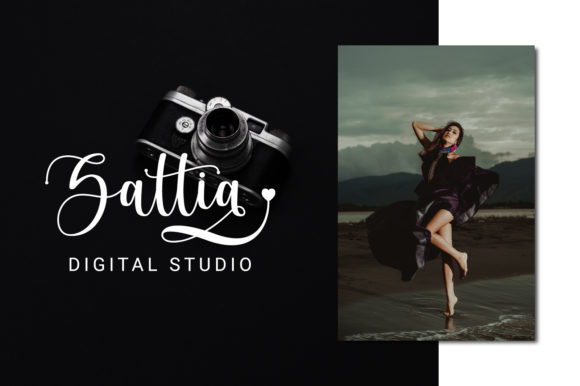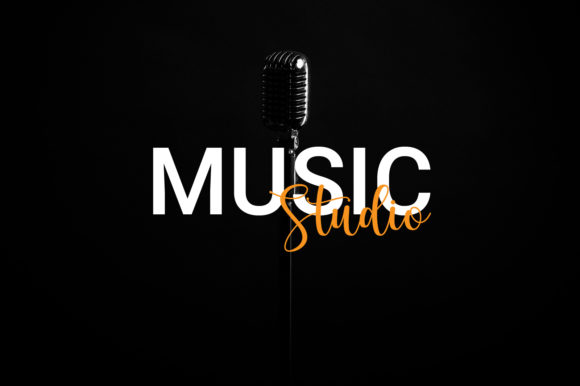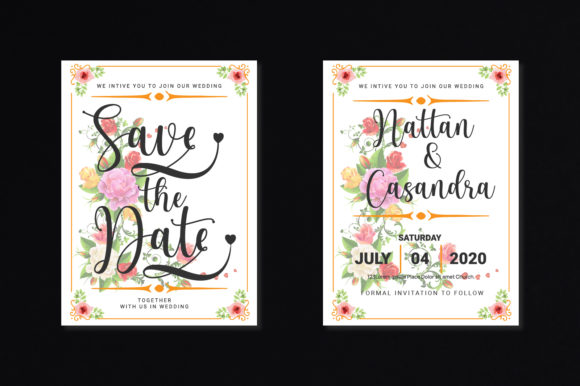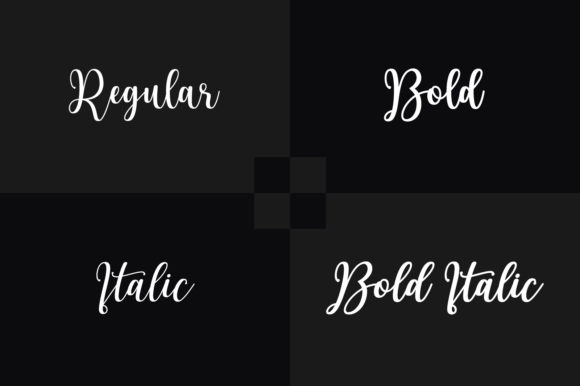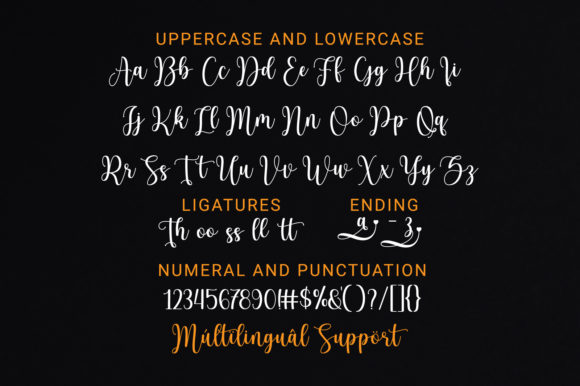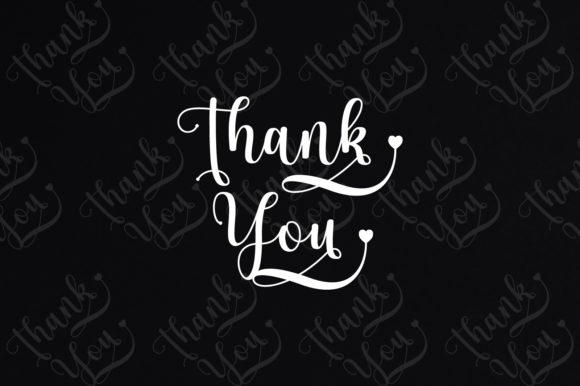
Introducing Hello Cattia Font: The Ultimate Choice for Creative Projects
Are you a designer, crafter, or DIY enthusiast looking for a font that can add a touch of personality to your creative projects? Look no further than Hello Cattia Font, a cute and casual handwritten font that exudes a friendly feel. In this article, we’ll explore the features and benefits of Hello Cattia Font, and how it can elevate your designs to the next level.
The Characteristics of Hello Cattia Font
Hello Cattia Font is a unique and charming handwritten font that is perfect for a wide range of creative projects. Its friendly and approachable feel makes it ideal for designs that require a personal touch. The font features:
- Cute and casual handwritten style
- Very friendly feel
- Perfect for wedding invitations, artwork, social media posts, and greeting cards
- Cute alternative letters for a modern and luxurious look
Endless Creative Possibilities with Hello Cattia Font
Hello Cattia Font is a versatile font that can be used for a variety of creative projects. Whether you’re looking to create:
- Beautiful wedding invitations that will make your loved ones feel special
- Stunning artwork that showcases your creativity
- Interesting social media posts that will engage your audience
- Funny greeting cards that will bring a smile to someone’s face
Hello Cattia Font is the perfect choice. Its friendly and approachable feel makes it easy to connect with your audience, while its cute and casual style adds a touch of whimsy to your designs.
The Power of Alternative Letters
One of the standout features of Hello Cattia Font is its cute alternative letters. These letters offer a range of creative possibilities, allowing you to customize your designs and give them a unique touch. With alternative letters, you can:
- Create a modern and luxurious look that will elevate your designs
- Add a touch of elegance and sophistication to your projects
- Experiment with different letter combinations to create a unique style
Why Choose Hello Cattia Font?
So why choose Hello Cattia Font for your creative projects? Here are just a few reasons:
- Unique and charming handwritten style
- Versatile and flexible, suitable for a wide range of projects
- Cute alternative letters for added creativity
- Perfect for designers, crafters, and DIY enthusiasts
- Experiment with different font sizes and colors to create a unique look
- Use alternative letters to add a touch of personality to your designs
- Combine Hello Cattia Font with other fonts to create a unique style
Hello Cattia Font is a charming and versatile handwritten font that is perfect for a wide range of creative projects. Its friendly and approachable feel, combined with its cute alternative letters, make it an ideal choice for designers, crafters, and DIY enthusiasts. Whether you’re looking to create beautiful wedding invitations, stunning artwork, or interesting social media posts, Hello Cattia Font is the perfect choice. So why wait? Download Hello Cattia Font today and turn your creative ideas into true works of art!